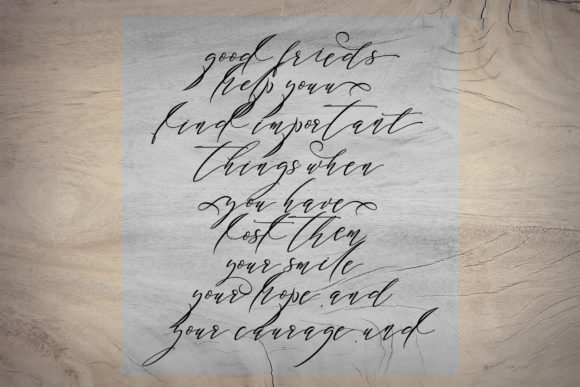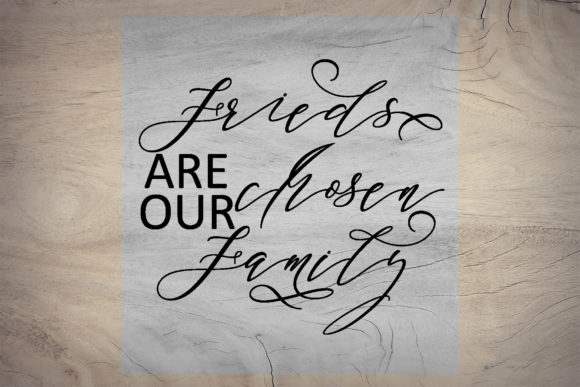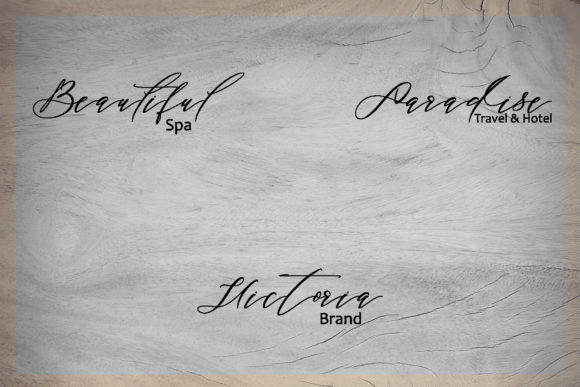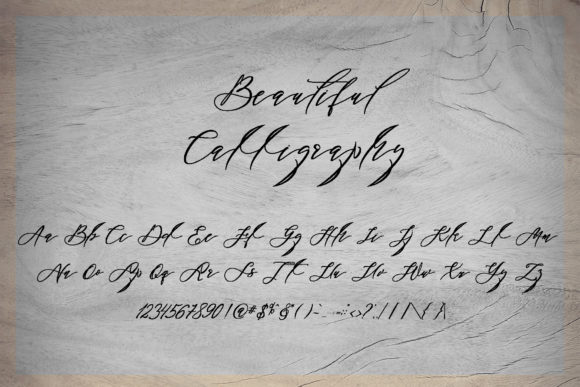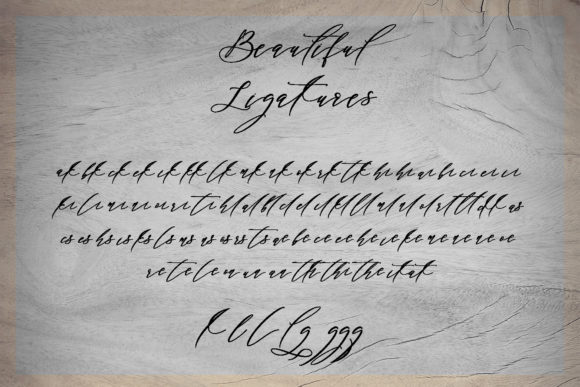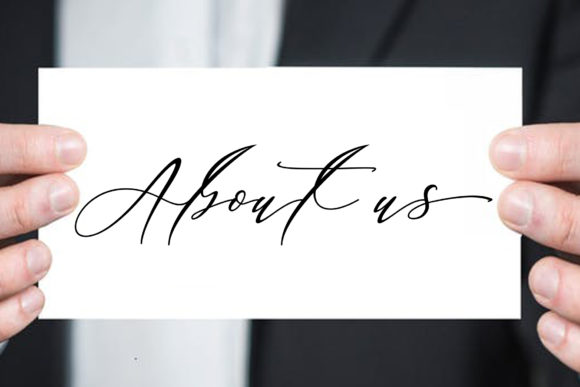
Unleash the Power of Elegance with Black Thise Font
In the realm of typography, a font can make or break the visual appeal of any design project. For those seeking a modern script font that exudes elegance and sophistication, look no further than Black Thise. This stunning font is meticulously crafted to elevate your text to new heights, making it perfect for a wide range of creative endeavors.
What is Black Thise Font?
Black Thise is a modern script font that boasts a unique and captivating style. Every single letter has been carefully designed to ensure that your text looks beautiful and refined. With its modern script style, Black Thise is an excellent choice for designers and crafters looking to add a touch of elegance to their projects.
Key Features of Black Thise Font
- Modern Script Style: Black Thise features a contemporary script style that is both stylish and versatile.
- Beautiful Lettering: Each letter has been meticulously crafted to ensure that your text looks stunning and refined.
- Highly Versatile: Black Thise is perfect for a wide range of projects, including invitations, greeting cards, posters, name cards, quotes, blog headers, branding, logos, fashion, apparel, letters, and more.
Black Thise font is an excellent choice for various design projects, including:
- Invitations: Add a touch of elegance to your wedding invitations, birthday invitations, or any other special occasion.
- Greeting Cards: Create beautiful greeting cards for holidays, birthdays, or other special occasions.
- Posters: Use Black Thise to create eye-catching posters for events, promotions, or advertisements.
- Name Cards: Add a personal touch to your name cards with this elegant font.
- Quotes: Create inspiring quote graphics for social media or blogs.
- Blog Headers: Elevate your blog’s visual appeal with Black Thise.
- Branding and Logos: Use Black Thise to create a unique and memorable brand identity.
- Fashion and Apparel: Add a touch of style to your fashion and apparel designs.
Why Choose Black Thise Font?
With so many fonts available, why choose Black Thise? Here are a few compelling reasons:
- Unique Style: Black Thise boasts a unique and captivating style that sets it apart from other fonts.
- Elegant and Refined: This font is perfect for designers and crafters looking to add a touch of elegance to their projects.
- Highly Versatile: Black Thise can be used for a wide range of projects, making it an excellent addition to your font collection.
- Easy to Read: Despite its elegant style, Black Thise is easy to read, making it perfect for body text and headlines.
Tips for Using Black Thise Font
To get the most out of Black Thise, here are a few tips:
- Use it as a Headline Font: Black Thise is perfect for headlines and titles, where its elegant style can shine.
- Pair it with Other Fonts: Experiment with pairing Black Thise with other fonts to create a unique and visually appealing combination.
- Adjust the Size and Color: Play around with different sizes and colors to find the perfect combination for your project.
In conclusion, Black Thise font is a stunning modern script font that is perfect for designers and crafters looking to add a touch of elegance to their projects. With its unique style, beautiful lettering, and high versatility, Black Thise is an excellent addition to any font collection. Whether you’re working on invitations, greeting cards, posters, or any other design project, Black Thise is sure to impress.